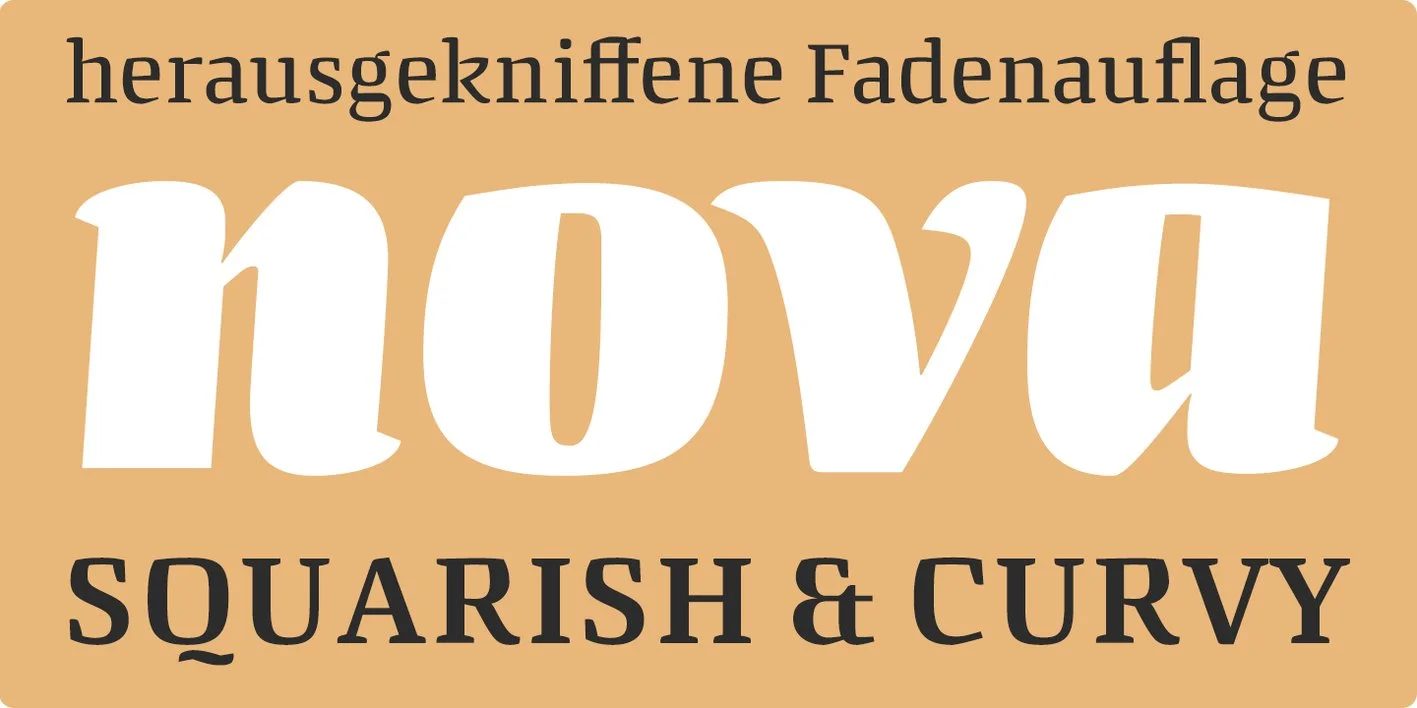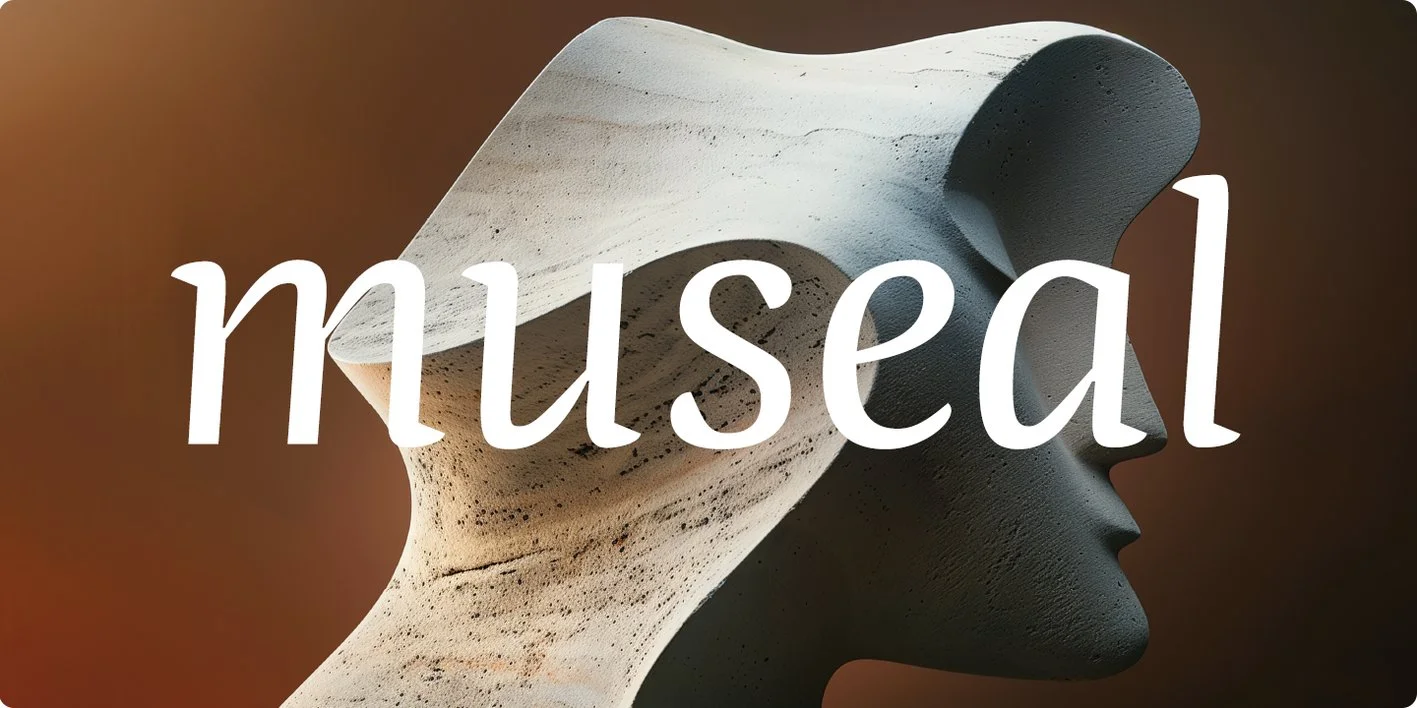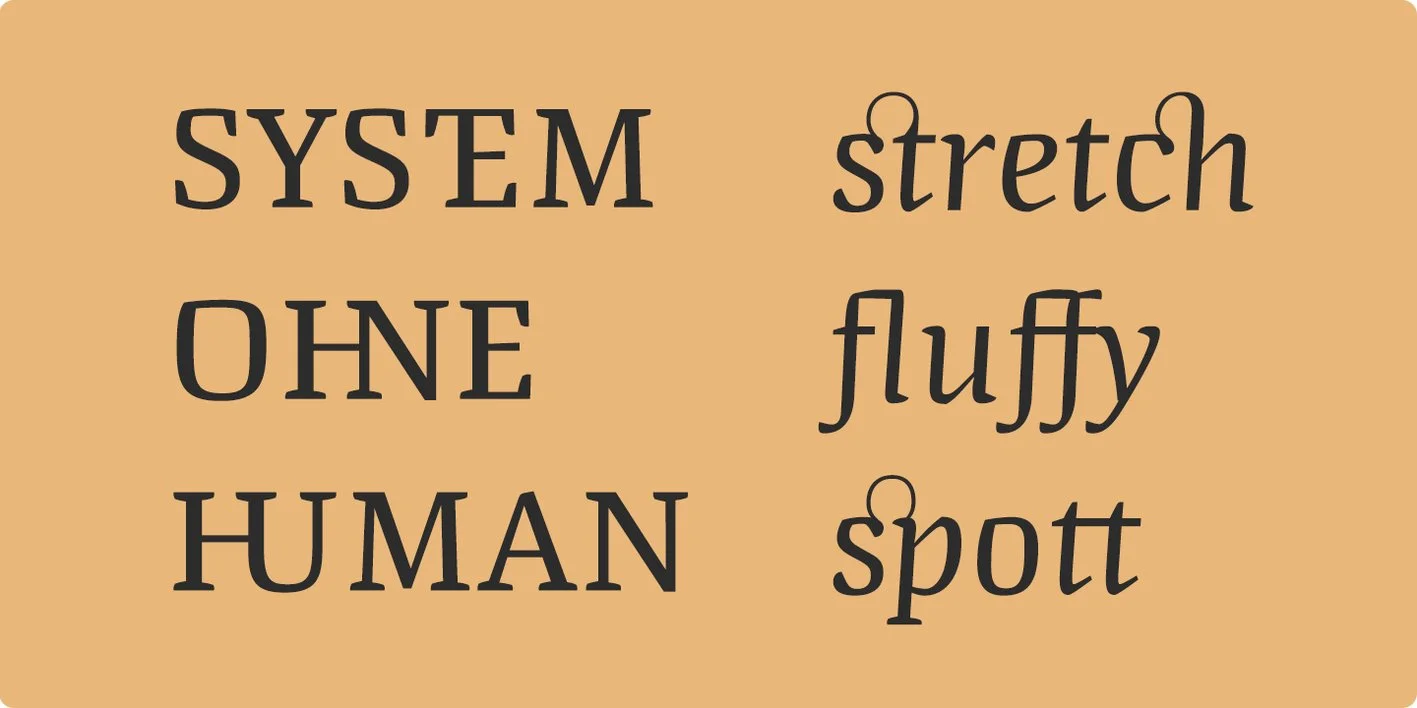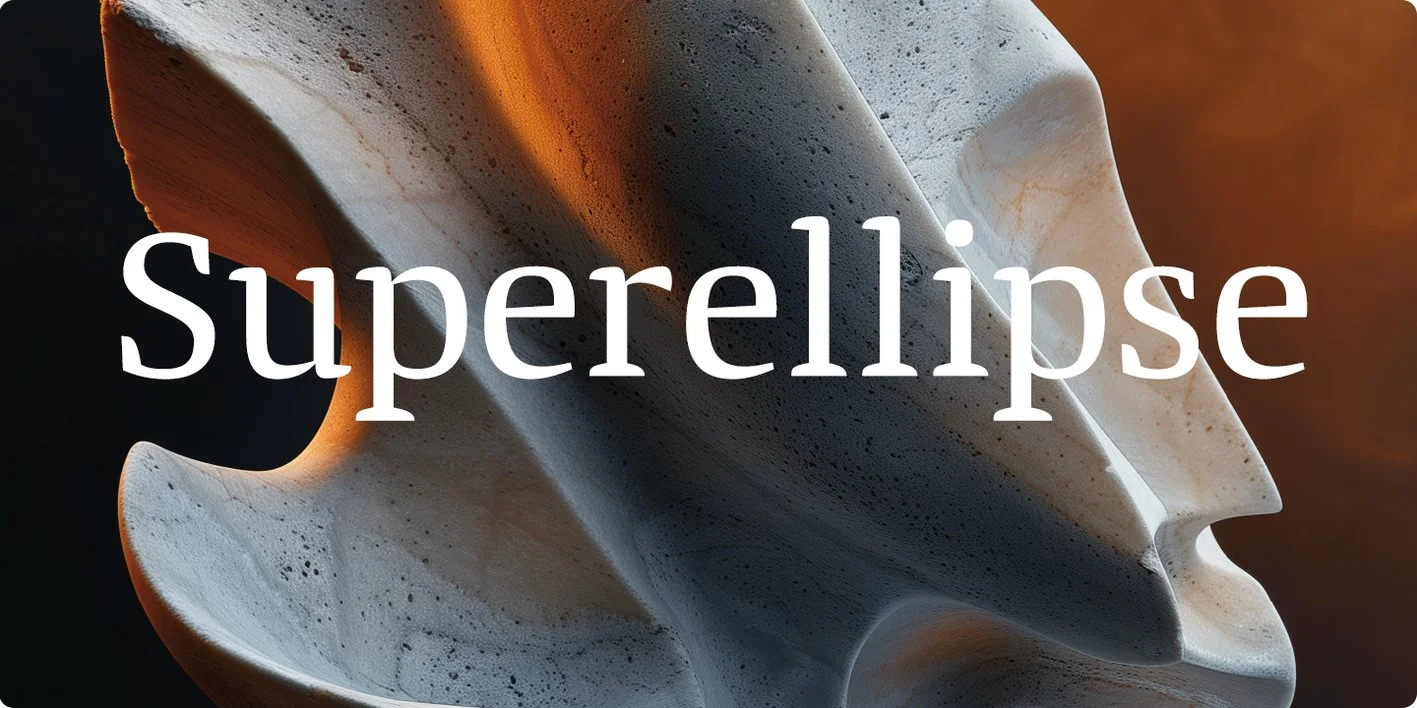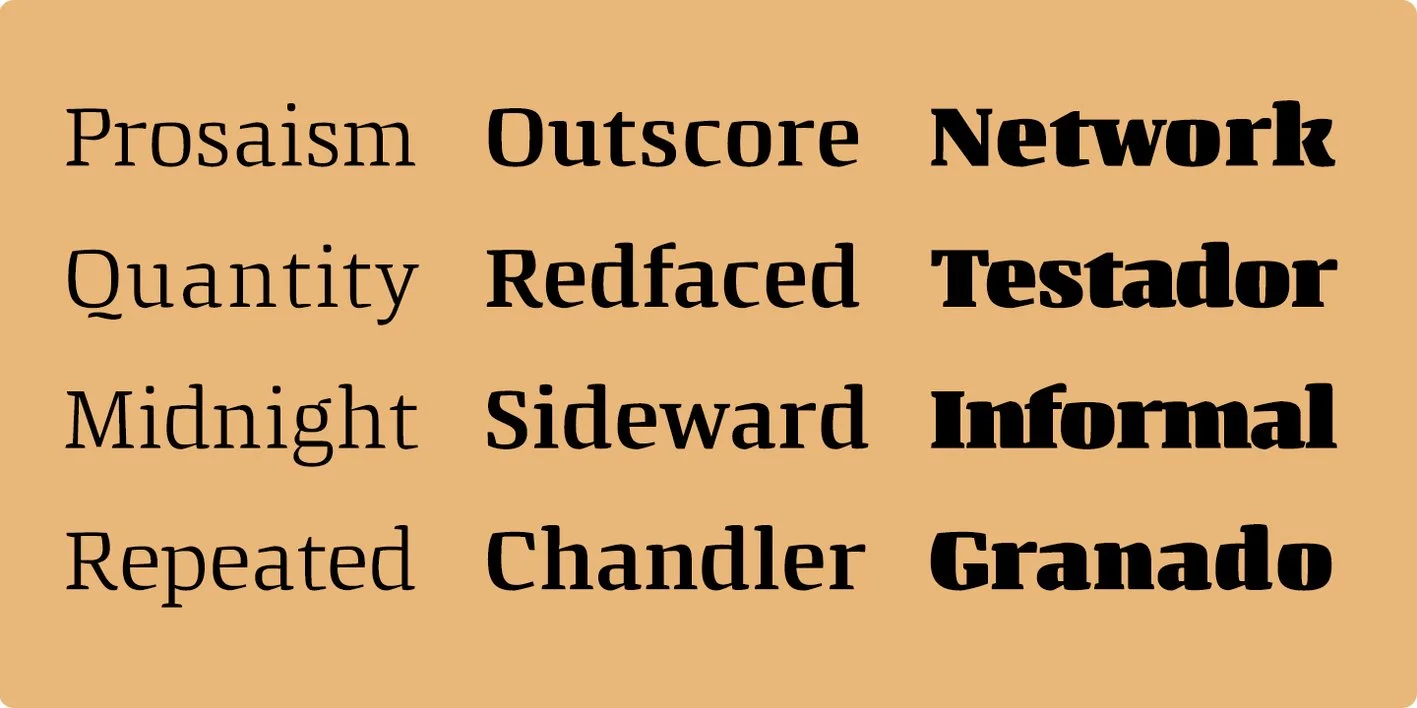
Quador Display Font
There is a particular satisfaction in finding a typeface that delivers controlled contrast that rewards close inspection without compromise. Quador Display consistently provides it. The typeface brings a bold, impact-first sensibility to a broad range of creative disciplines, with refined proportions and careful stroke modulation that holds up whether the work is print-first or screen-first.
In practice, Quador Display proves particularly effective for logo design, festival posters, editorial layouts, poster creation, music packaging. Designers reaching for it find that the type decisions feel resolved rather than laboured — a useful quality when client timelines are tight.
The range of applications extends to theatrical programmes, album artwork, packaging design, street murals. That breadth is deliberate: the proportions and spacing were stress-tested across a wide range of mock briefs before the typeface was finalised.
Designed primarily for sizes above 24pt, the glyphs feature expanded ink traps, generous spacing, and optical anchors that prevent visual vibration when used at headline scale. Tighter tracking at large sizes is built into the spacing tables.
Quador Display sits comfortably alongside both classic and contemporary typefaces in multi-font hierarchies. It takes direction rather than competing for attention — a quality that experienced designers know is harder to find than it appears.
Graphic designers working on identity systems find Quador Display a reliable choice for projects that demand both personality and restraint. The design avoids the self-conscious quirkiness that dates quickly, settling instead for considered distinctiveness that holds up over time.